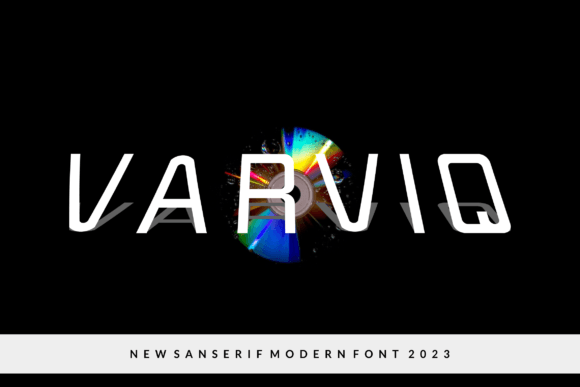
Step into the realm of typography with Varviq Font, a modern font that exudes elegance and sophistication. This sans serif font family, meticulously crafted by kalingga.albert, stands out as the ultimate choice for those seeking a font that seamlessly complements body text.
With its strong and bold structure, Varviq Font commands attention while maintaining a sense of readability. Its carefully balanced letterforms and generous x-height ensure optimal legibility, making it ideal for extended reading. Whether you're working on a captivating novel, an informative blog post, or any other text-heavy project, Varviq Font elevates your content, enhancing the reading experience for your audience.
Unleash your creativity with Varviq Font's versatility. Its striking appearance effortlessly adapts to a multitude of design styles, whether you prefer a classic, contemporary, or something in between. From sleek logos and eye-catching headlines to engaging social media posts and captivating presentations, Varviq Font empowers you to make a lasting impression.
Embrace the boundless possibilities of Varviq Font. Its adaptability extends to various mediums, including print, digital, and even in the exciting world of t-shirt printing. Create designs that resonate with your audience, whether you're crafting a visually stunning poster or designing a t-shirt that reflects your unique style.
Immerse yourself in a world of design possibilities with Varviq Font. As you explore its endless applications, you'll discover a font that seamlessly integrates into your creative vision. Its timeless elegance ensures that your designs remain captivating and relevant, transcending the boundaries of time and trend.